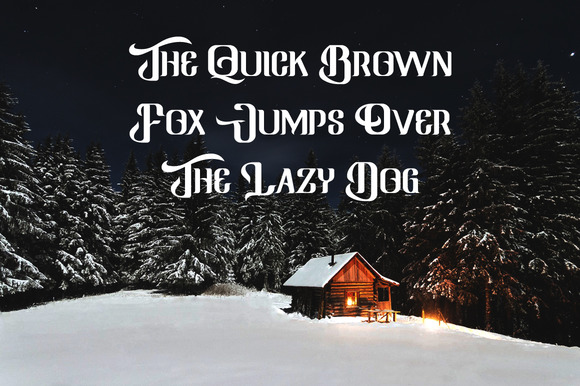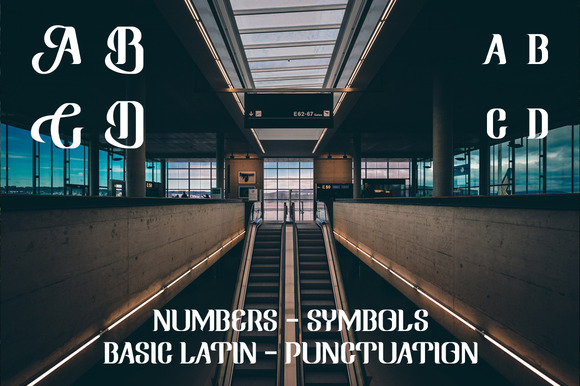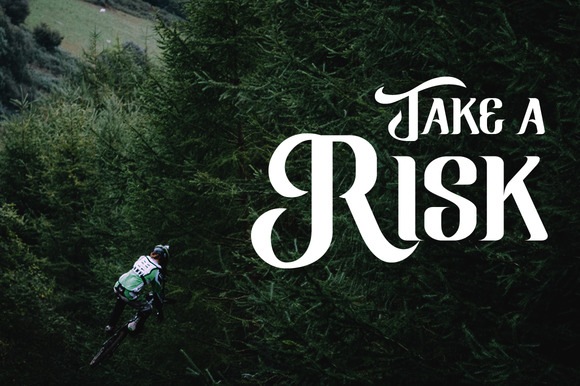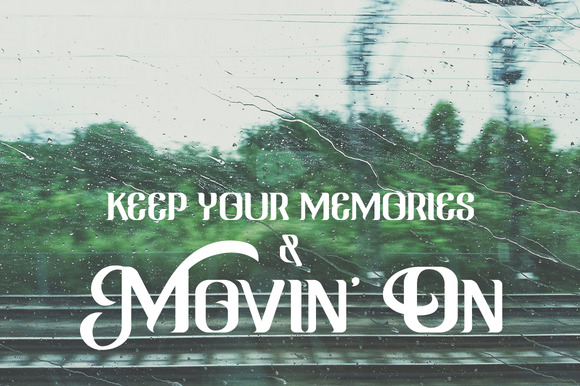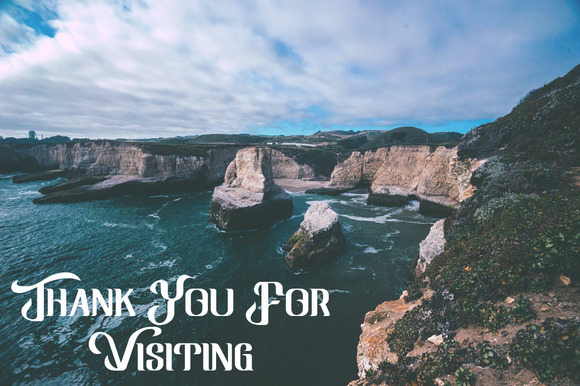
Introduction to Ringam Font
As a designer, have you ever been in the midst of a creative project, staring at a blank canvas, desperate for that perfect font to bring your vision to life? The struggle is real, but what if I told you that the solution is just a click away? The Ringam Font is a stunning display font that’s sure to elevate your design game.
This beautiful typeface is inspired by the ornate lettering of vintage styles, making it a treasure trove of creative possibilities. With its high-quality design and transparent background, the Ringam Font is the perfect resource for designers looking to add a touch of elegance to their projects. Whether you’re working on a logo, brochure, or social media graphics, this font is sure to make a statement.
Honest Review: Ringam Font
I recently came across the Ringam Font and I must say it’s a great addition to any design resource. It’s a high quality font that’s perfect for creative projects where you need a unique touch.
Overall, I think the Ringam Font is a great design resource that’s perfect for creative projects. While it may have some limitations, the benefits far outweigh the drawbacks. With its high quality design and transparent background, it’s definitely worth considering for your next design project.
Ringam Font is perfect for creating social media graphics, posters, and other marketing materials. You can also use it for creative projects like typography-based art or designs with a transparent background.
Is the Ringam Font suitable for high-resolution printing?
Yes, the Ringam Font is a high-quality design resource that’s suitable for high-resolution printing. Its crisp and clear characters ensure that your designs will look great even when printed at large sizes or in high-resolution formats. This makes it an excellent choice for designers working on print materials, such as business cards, brochures, or posters.